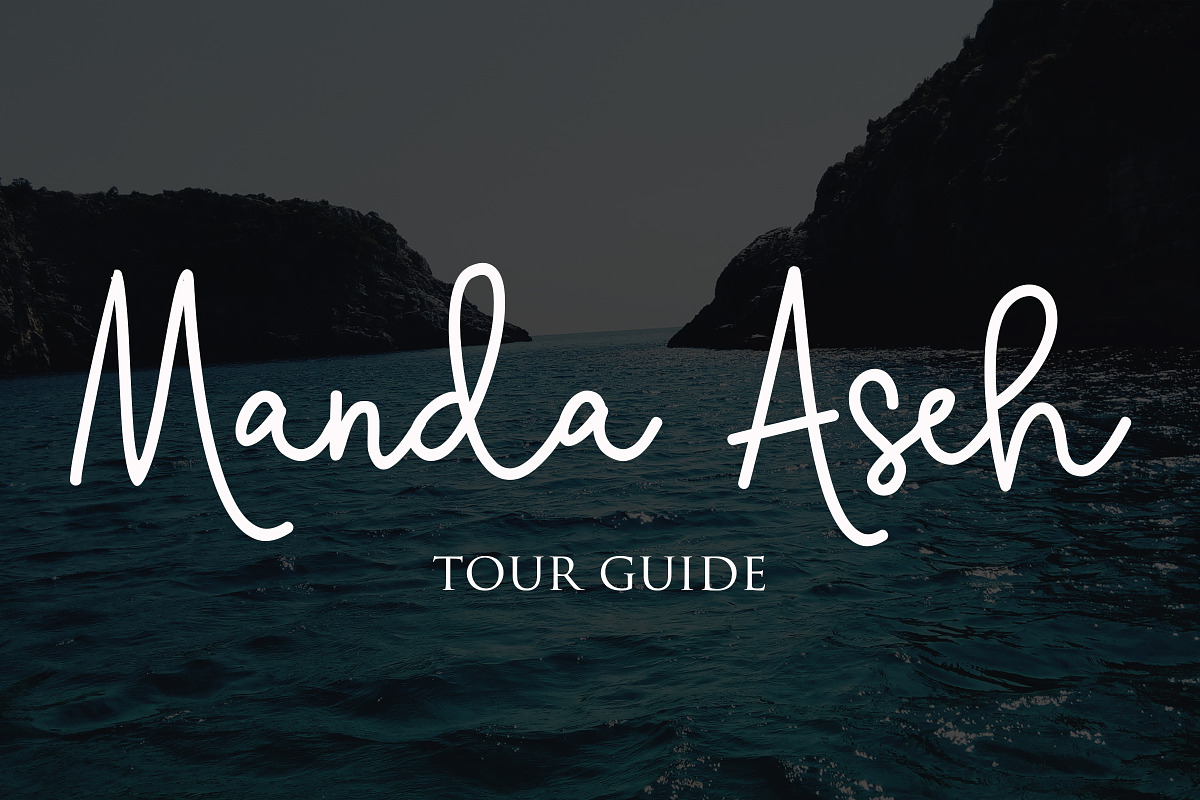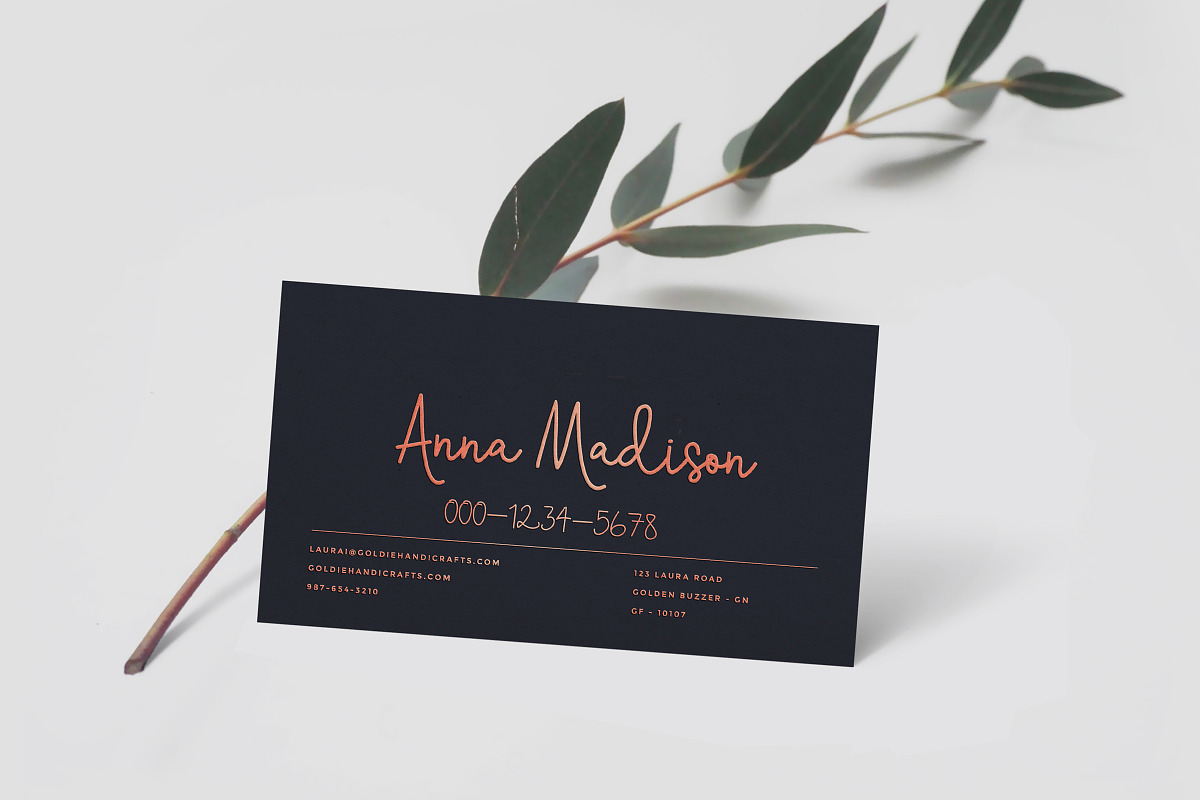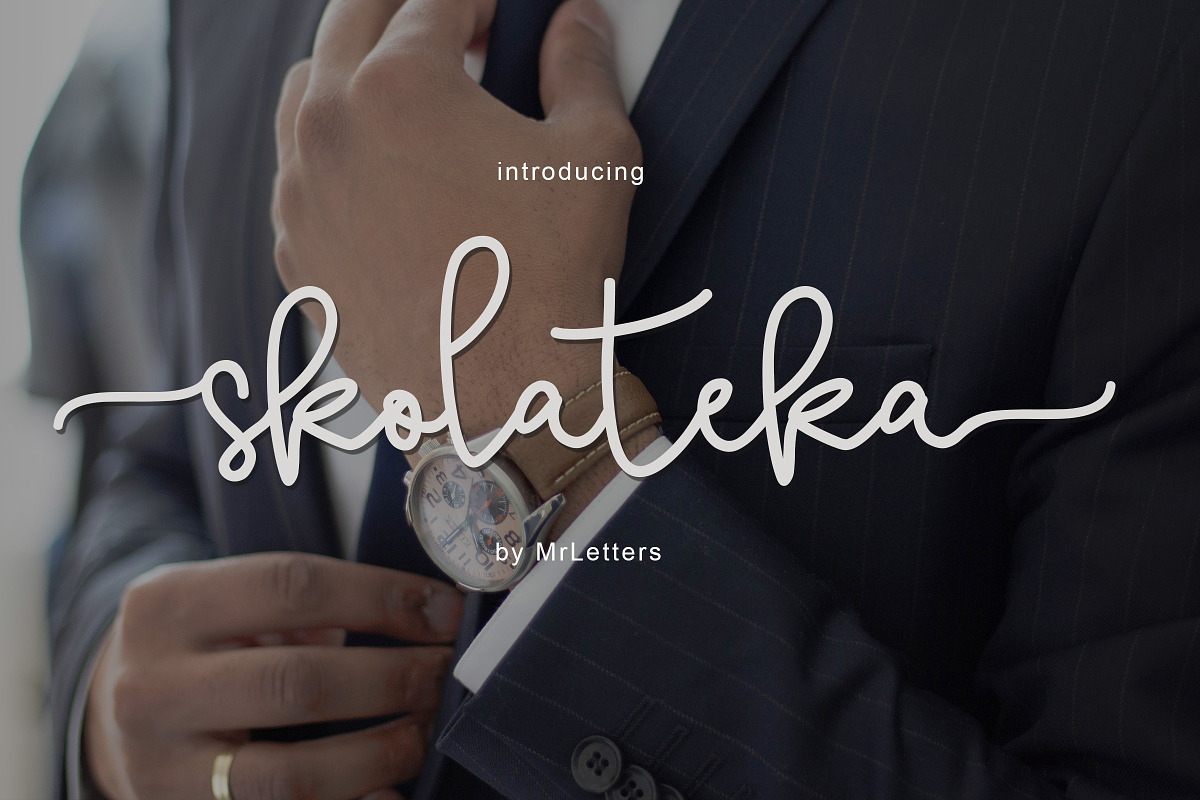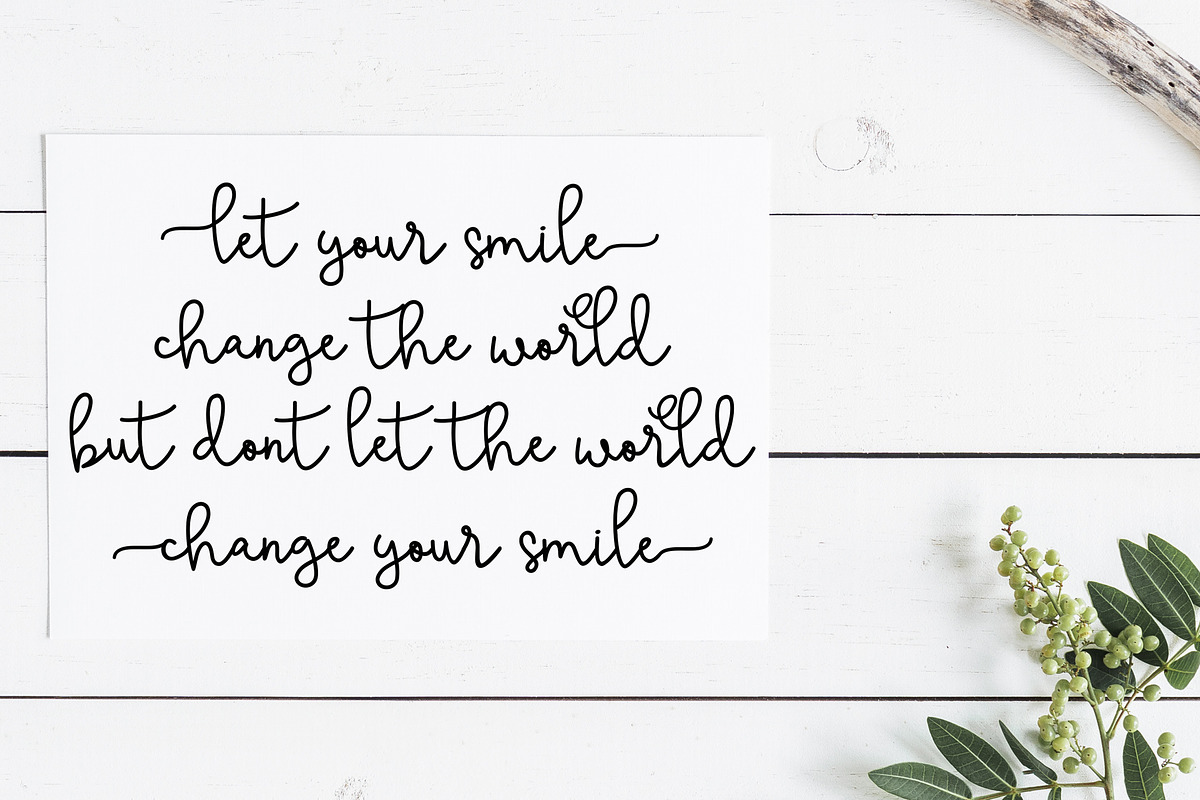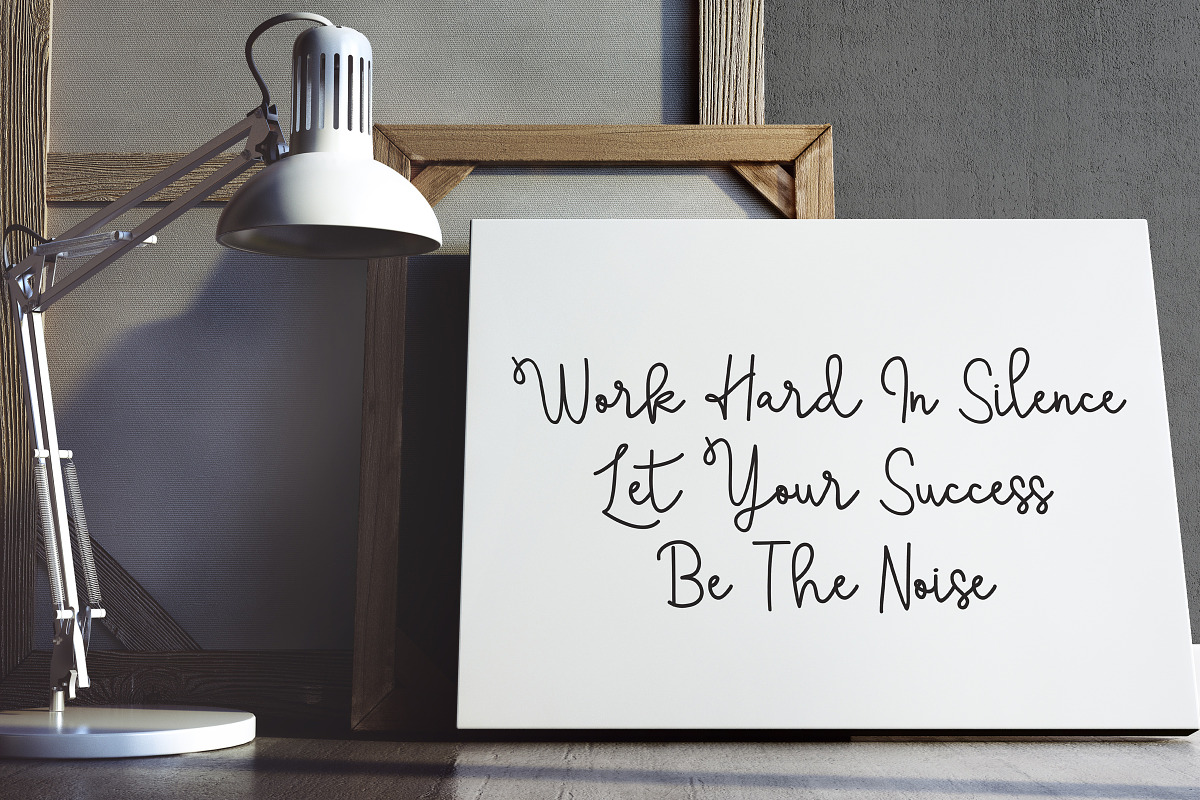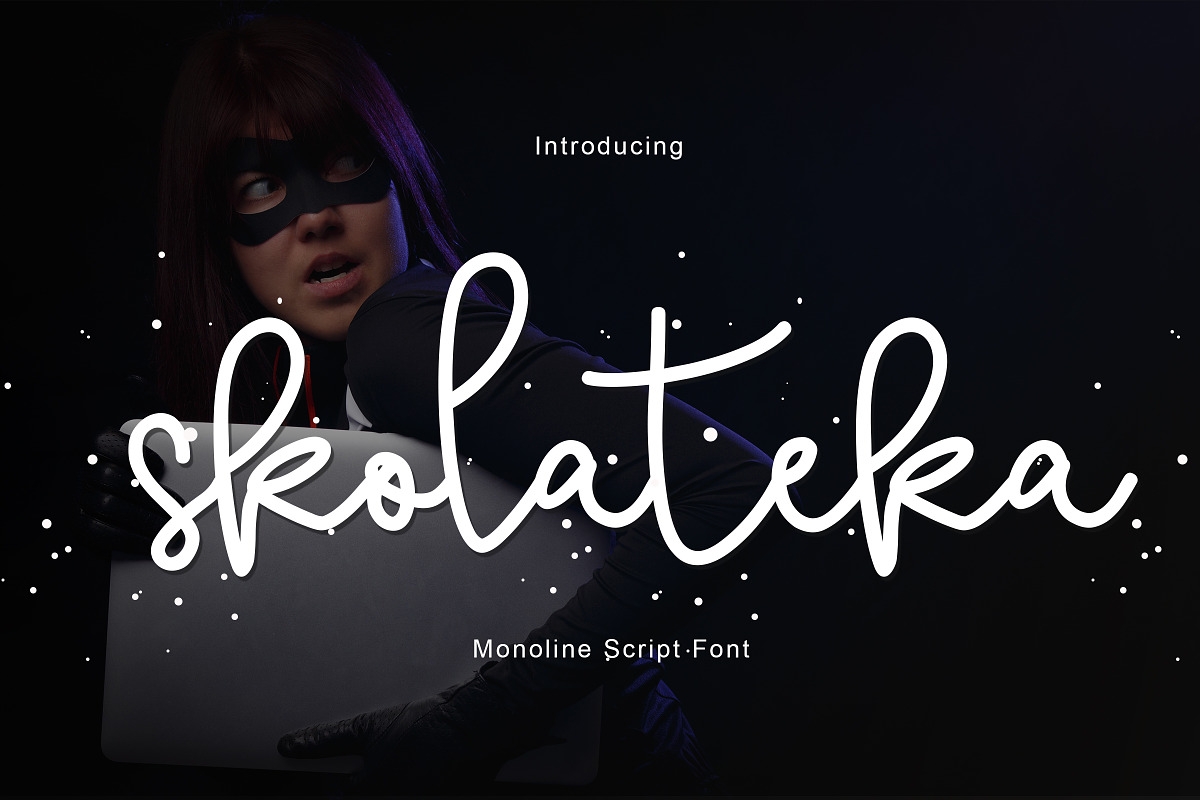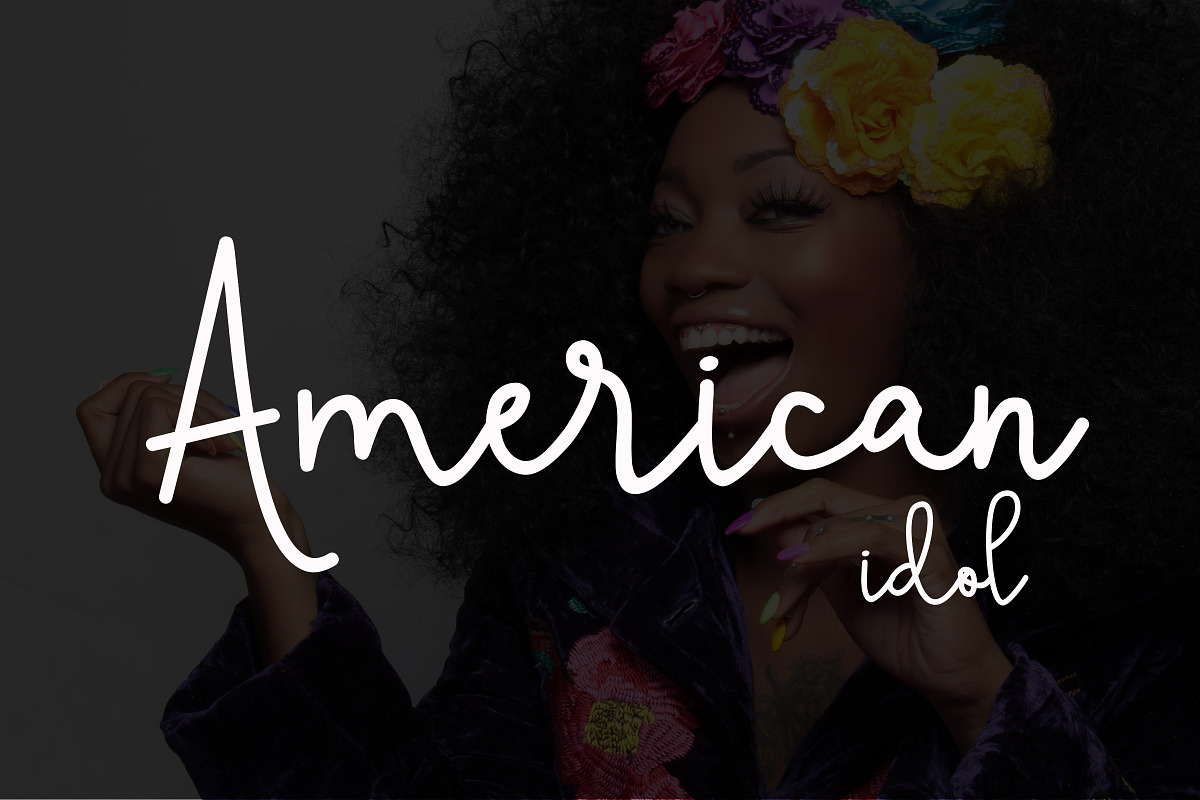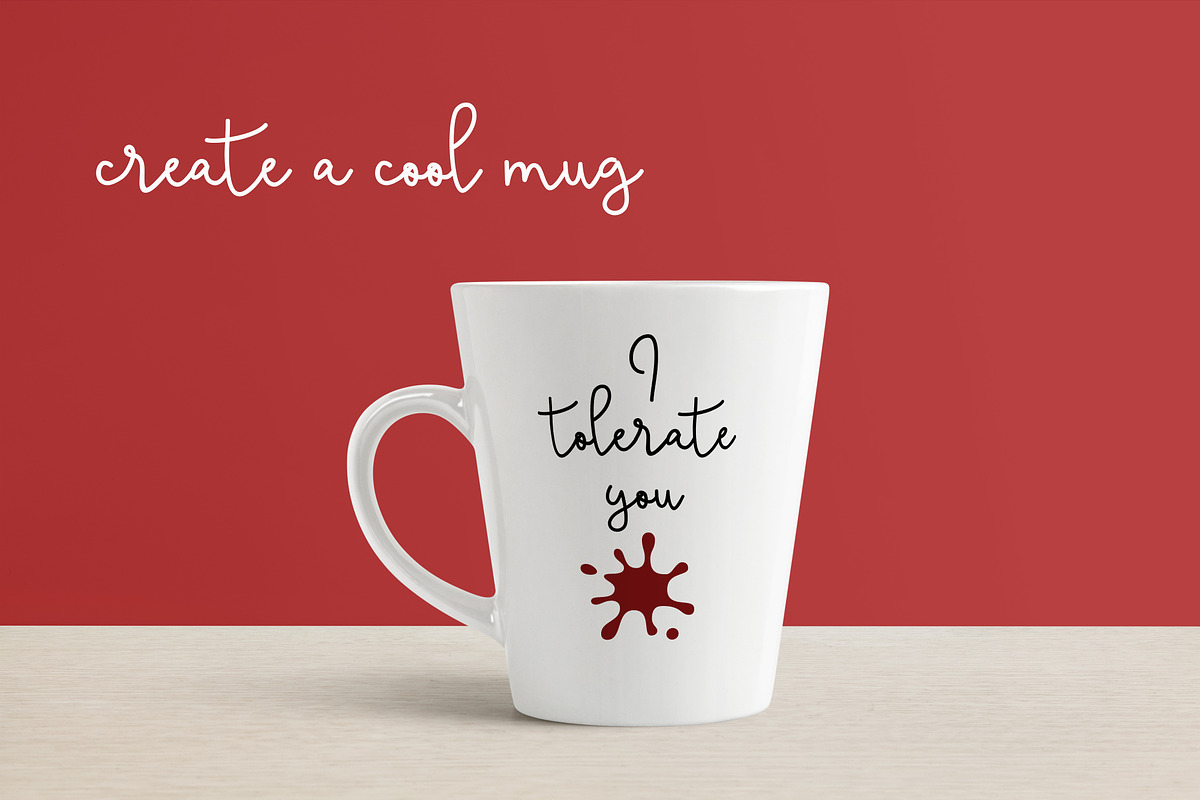
skolateka - handwritten typeface
Skolateka Script a new fresh & modern script with a handmade style, decorative characters and a dancing baseline! So beautiful on invitation like greeting cards, branding materials, business cards, quotes, posters, and more!!
Skolateka Script come with 268 glyphs. The alternative characters were divided into several Open Type features such as Swash, Stylistic Sets, Stylistic Alternates, and Ligature. The Open Type features can be accessed by using Open Type savvy programs such as Adobe Illustrator, Adobe InDesign, Adobe Photoshop Corel Draw X version, And Microsoft Word. And this Font has given PUA unicode (specially coded fonts). so that all the alternate characters can easily be accessed in full by a craftsman or designer.